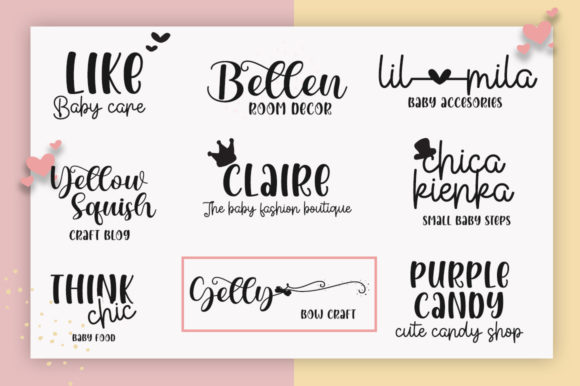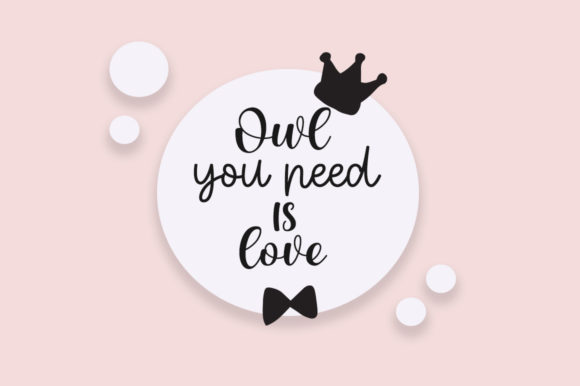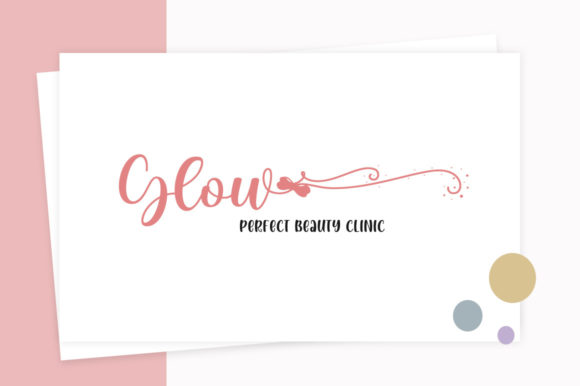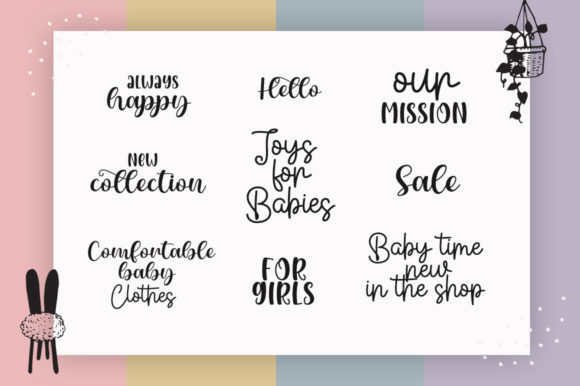
Discover the Joy of Baby Girl Font
Remember the moment when you decided to create something special for your little one’s birthday, nursery, or baby shower? The excitement of bringing your creative ideas to life, the anticipation of seeing your loved one’s face light up, and the satisfaction of knowing you made something truly unique and personal. That’s exactly what the Baby Girl Font is all about – capturing the essence of sweetness and charm in your designs.
This delightful font duo is designed to work in harmony, providing the perfect balance of elegance and playfulness. Whether you’re a seasoned designer or a crafty enthusiast, the Baby Girl Font is an invaluable addition to your toolkit. With its PUA encoding, you can easily access all the glyphs and swashes, allowing you to unleash your creativity and create stunning projects that will make anyone smile.
Baby Girl Font Key Features
- Font Family: Baby Girl Font is a custom-designed script font.
- Unique Characteristics: The font features elegant, cursive script lines and delicate flourishes, making it perfect for baby-themed designs, invitations, and announcements.
- Font Style: The font is available in regular and bold styles, allowing for versatile use in different contexts.
Designer Review: Baby Girl Font
The Baby Girl Font is a delightful, whimsical script font designed for creating a soft, feminine aesthetic. I appreciate its playful and elegant feel, making it perfect for various applications such as wedding invitations, baby shower decorations, and children’s product branding.
✨ What works well:
- Cute and charming, ideal for creating a sweet and endearing atmosphere
- Highly legible, even at smaller font sizes
- Works well in combination with other decorative fonts for added visual interest
⚠️ Limitations:
- Limited font weights and styles, which may limit its versatility
- Some characters may not be as detailed or precise as expected, which can affect overall quality
Overall, the Baby Girl Font is a lovely addition to any designer’s toolkit. Its unique character and charm make it an excellent choice for projects requiring a touch of sweetness and femininity. However, its limitations should be taken into consideration when selecting this font for more complex or high-end projects.
Use the Baby Girl Font to create adorable and playful designs for baby-related projects, such as baby shower invitations, nursery decor, and baby announcements.
Combine the Baby Girl Font with other design elements, such as illustrations and graphics, to add depth and interest to your design.